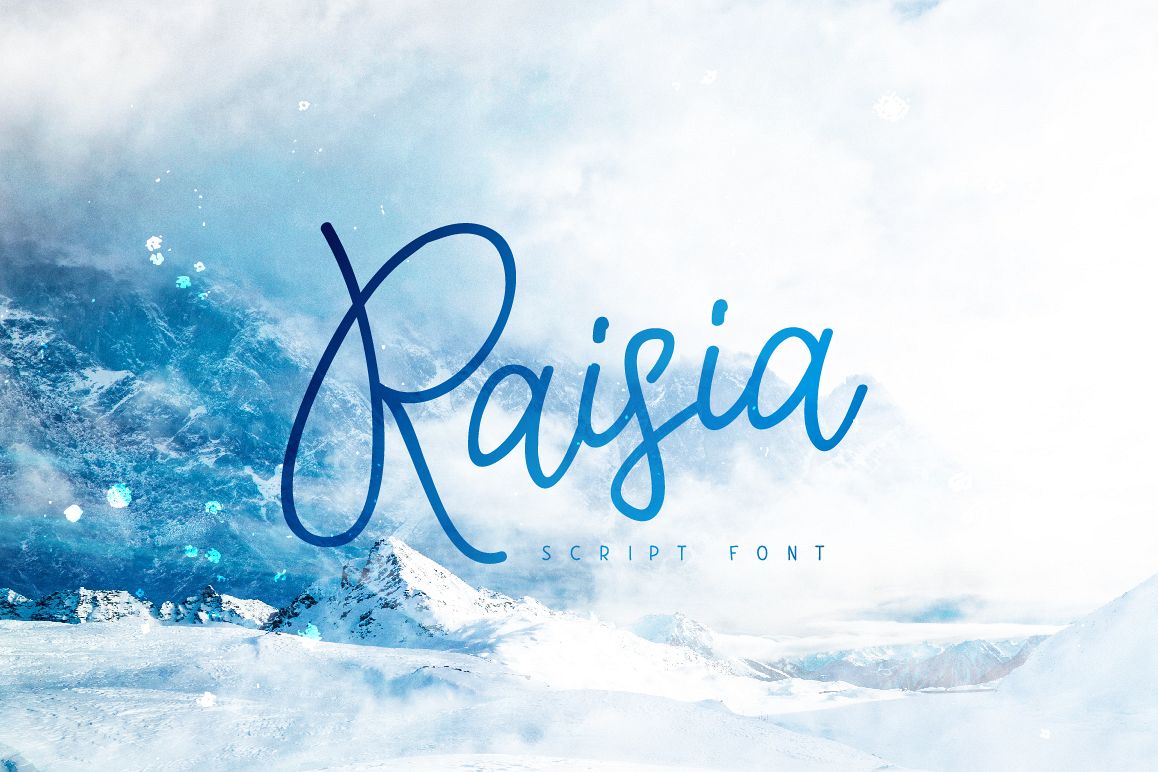
Raisia Script Font
Raisia
Introducing Raisia Script Font
Raisia Script Font is a unique handwritten font. Perfect for logos, greeting cards, product packaging, t-shirt, handwritten quotes and whatever your imagination holds.
Raisia Script Font comes with uppercase and lowercase characters, large set of punctuation glyphs, numerals, and supports international language.